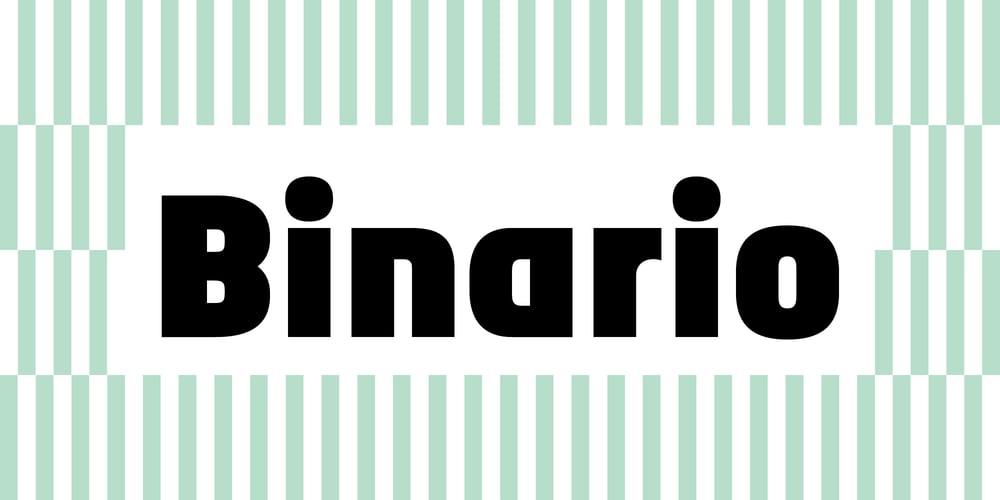
Binario
Binario font
Binario Font Family was designed by Donald Tarallo and published by Tarallo Design. Binario contains 6 styles and family package options. Binario is a simple and friendly font with three weights and matching obliques. The geometric and modular characteristics of this typeface subtly reference the Art Deco and early modernist periods. It is an ideal choice for achieving a clean, distinctive, and contemporary aesthetic, making it suitable for branding, posters, and screen-based designs. The light weight of Binario is good for body text. The regular weight exudes confidence, making it suitable for both body and heading text. For impactful headlines, the bold weight is superb. The clear weight distinction of this family make it easy to create organized text.Binario was designed in Siena, Italy taking some inspiration from train stations and shop signage. The name Binario means train platform in Italian. Other aspects that informed the design of this font are modularity and efficiency. The interior rounded forms of the letters (counterforms) are based on shape of the Roman arch.Binario has a sibling, Binario Soft. This version has gently rounded stroke ends, which make a softer impression on the page.